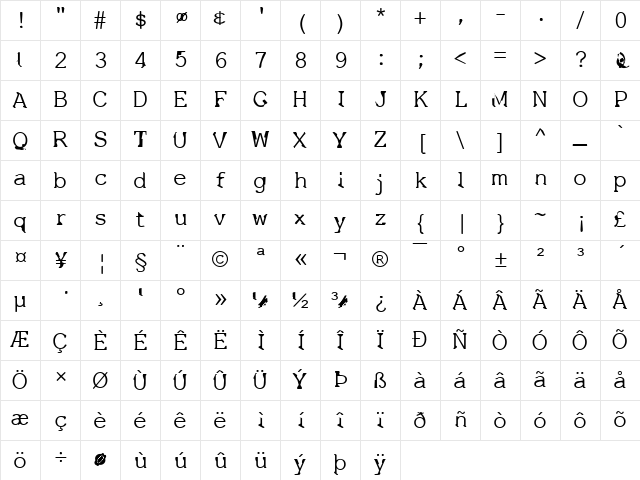
Dissatisfaction Regular
Design Context for Dissatisfaction
Dissatisfaction is a composed and adaptable typeface that performs quietly and consistently across a wide range of design contexts.
Pro Tip: Use Dissatisfaction in both headline and body roles to test its range before committing to a single application.